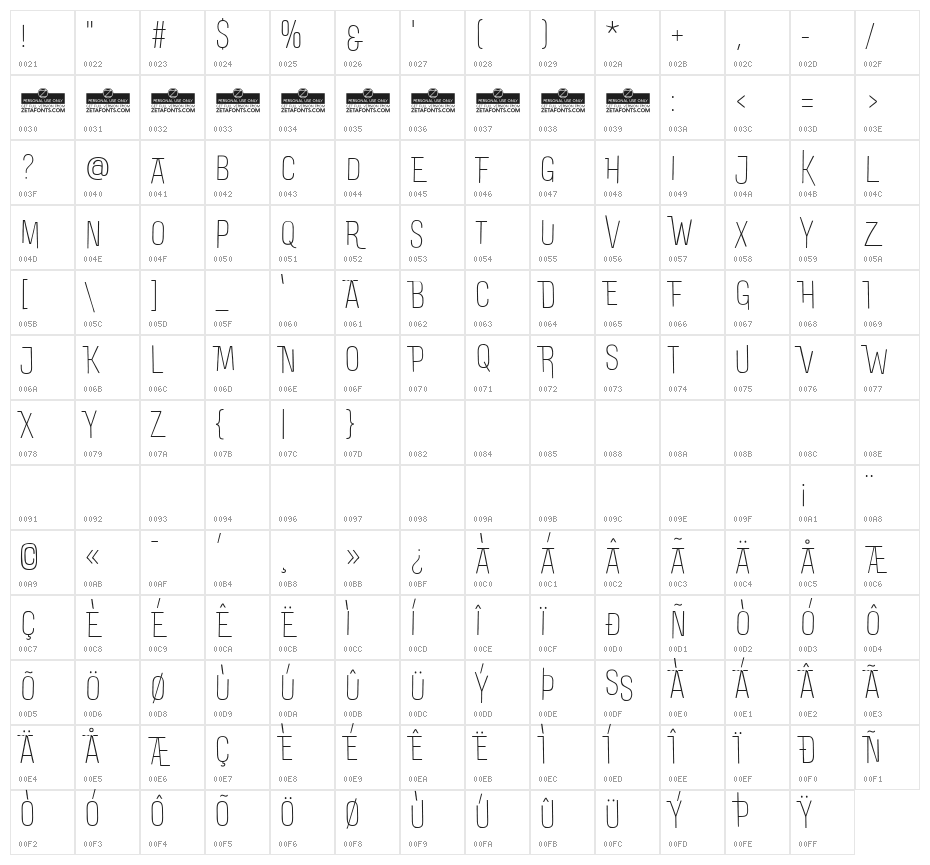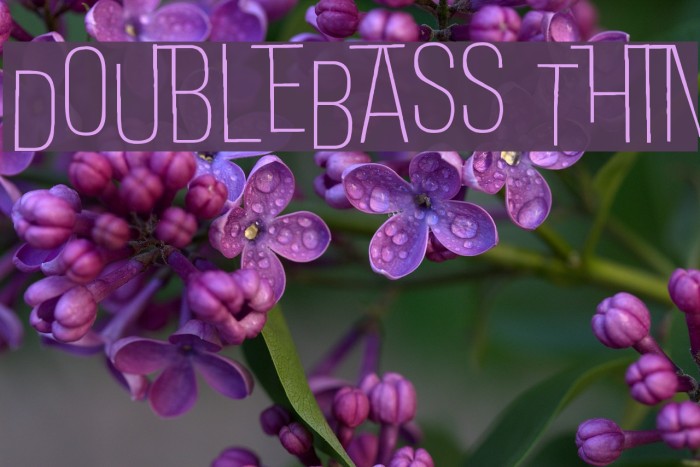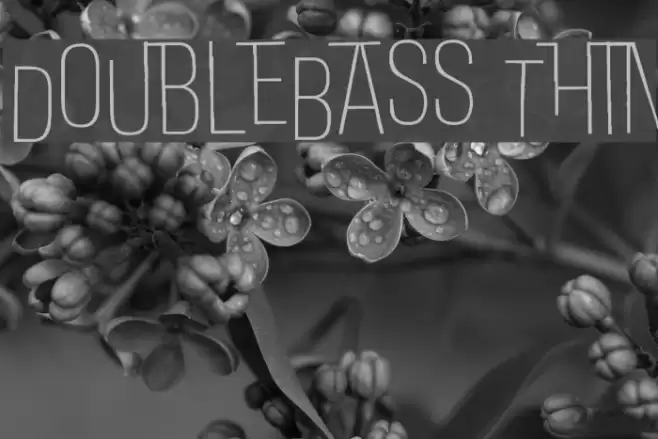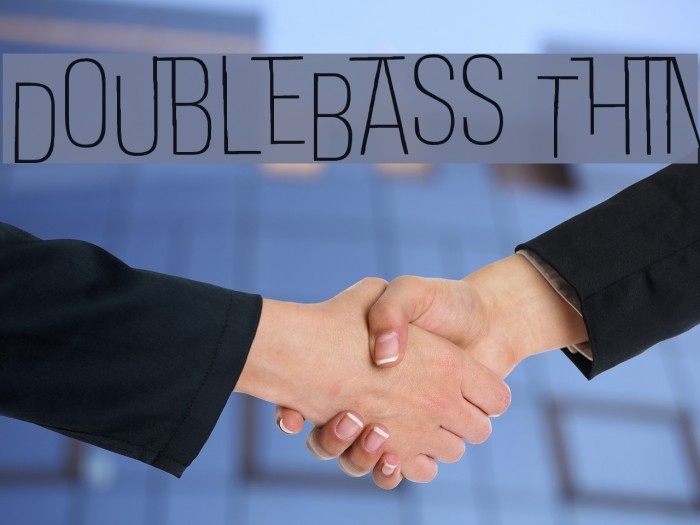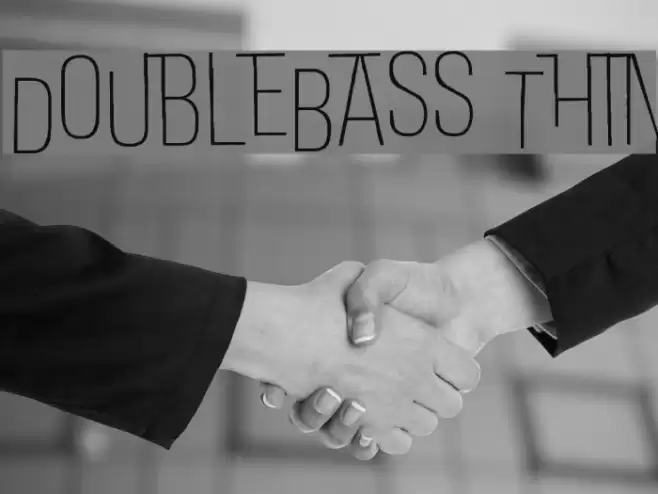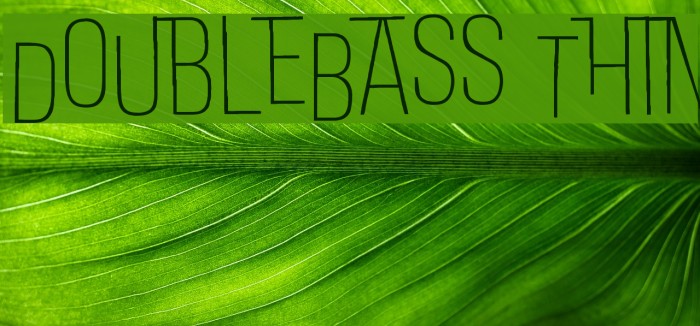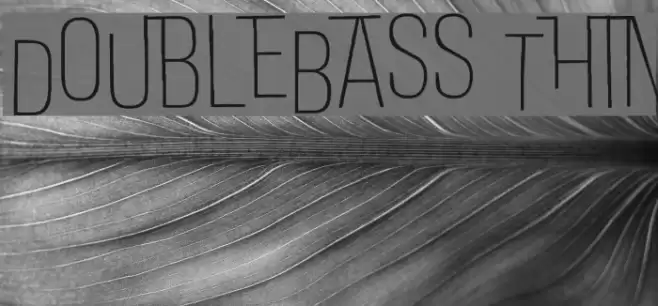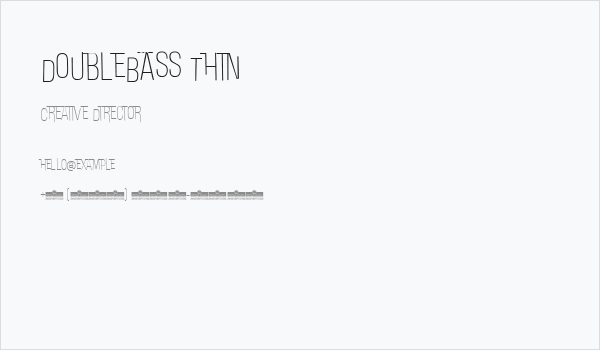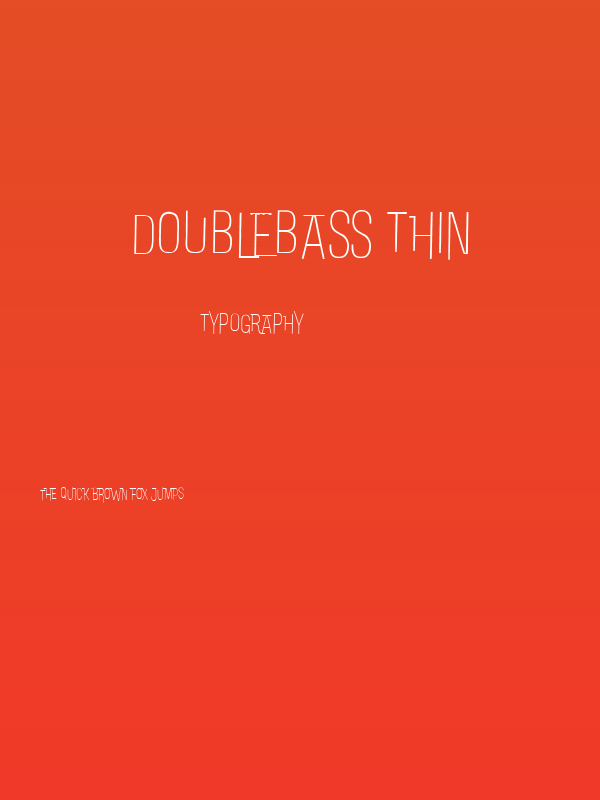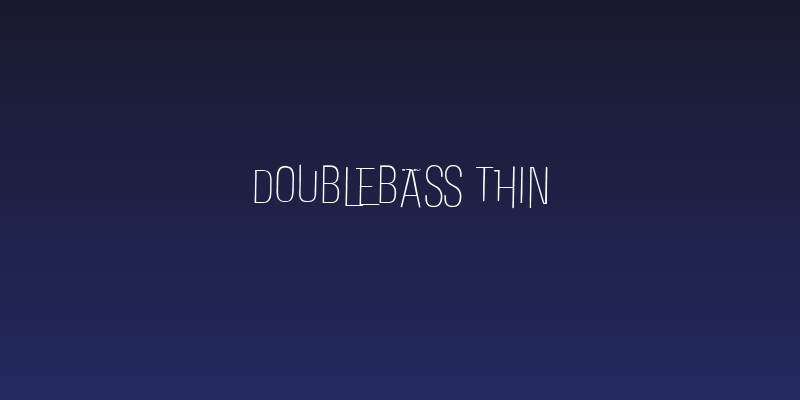
DoubleBass Thin Font
DoubleBass Thin Description
This font features a unique and artistic style with elongated and thin letterforms. The characters have a hand-drawn appearance, giving them a distinctive and creative look. The strokes are uneven, adding to the organic and informal feel of the typeface. It maintains a consistent height across uppercase and lowercase letters, which enhances its readability despite the unconventional design. The font's playful and whimsical nature makes it suitable for projects that require a touch of personality and flair.
| Use Case | Headlines, Artistic projects, Branding |
| Proposed Projects | Ideal for creative projects such as posters, album covers, and artistic branding that require a unique and personal touch. |